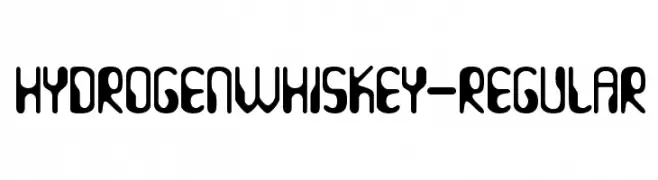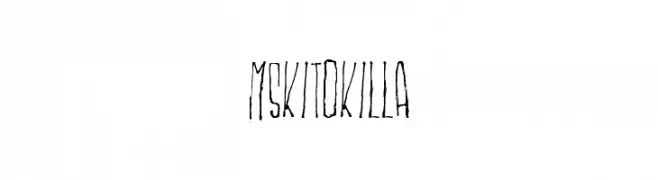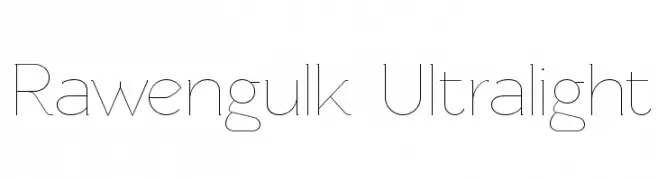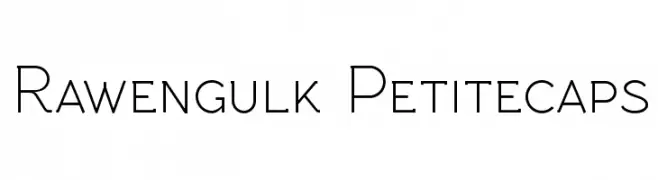
A hand-drawn, artistic font with elongated, irregular letterforms and a textured appearance.
A bold, artistic font with thick, rounded strokes and unique cutouts.
A minimalist, ultralight font with clean, geometric lines and consistent spacing.
A modern, clean font with thin, geometric strokes and high readability.